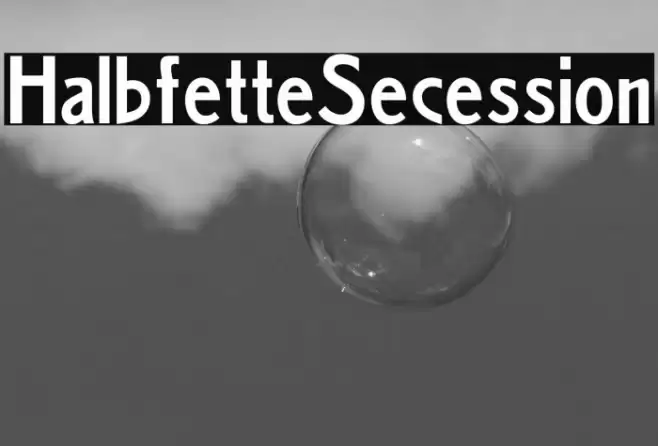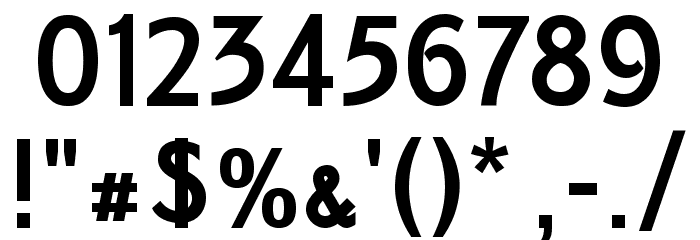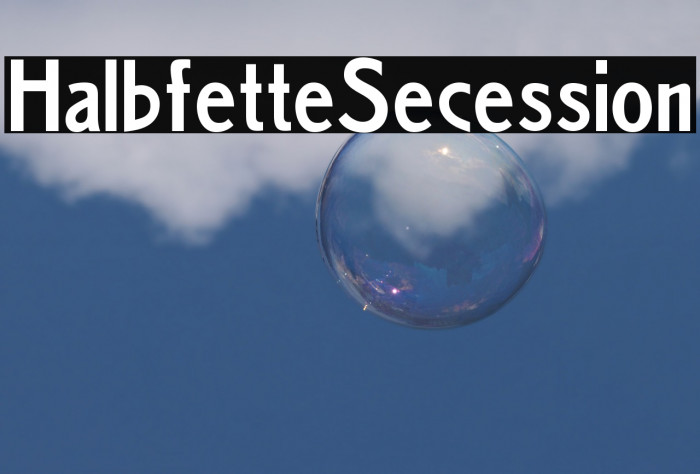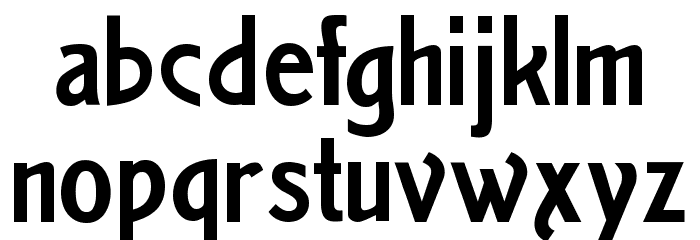
HalbfetteSecession Font
HalbfetteSecession Description
This font showcases a bold and geometric style, characterized by its strong, angular lines and distinct shapes. The uppercase letters exhibit a unique blend of sharp edges and curves, creating a dynamic and modern appearance. The lowercase letters maintain a consistent style, with a slightly more rounded approach, ensuring readability while retaining the font's distinctive character. The numerals are bold and clear, making them suitable for various applications. Special characters are well-integrated, maintaining the overall aesthetic. This font is versatile, suitable for both digital and print media, and can be used effectively in branding, advertising, and editorial design.
A bold, geometric font with strong, angular lines and a modern aesthetic from Uncategorized fonts.